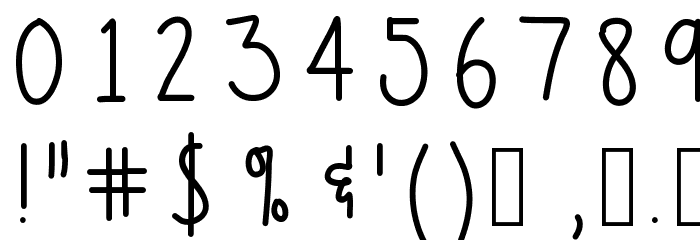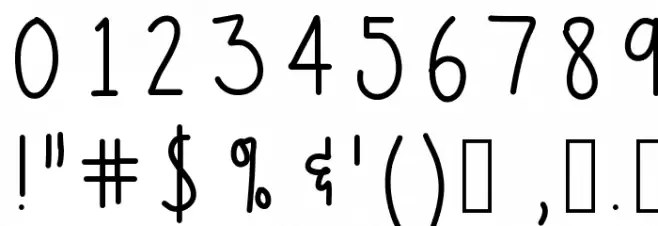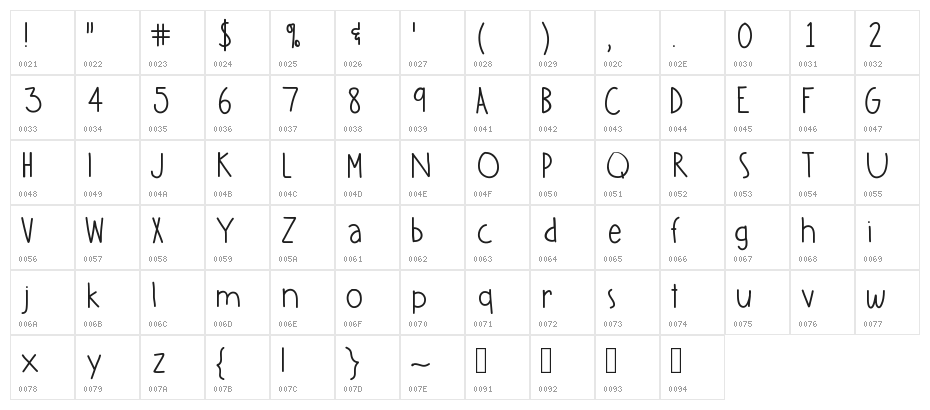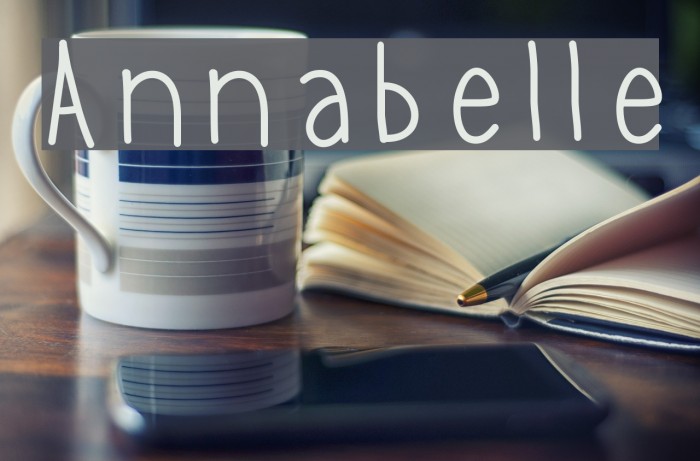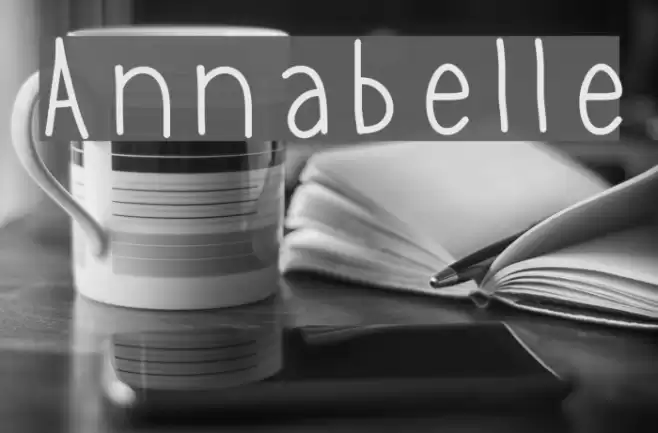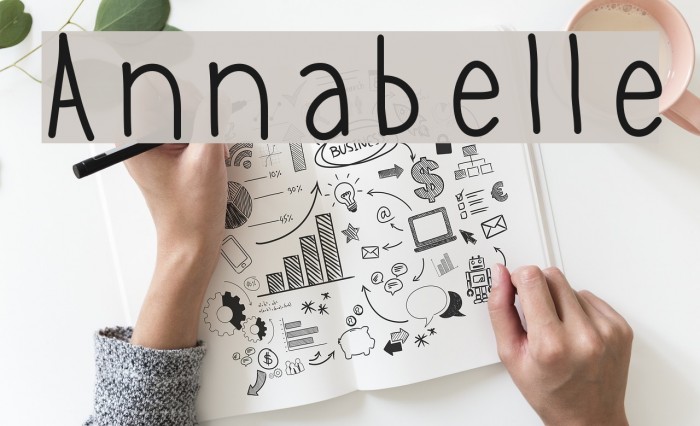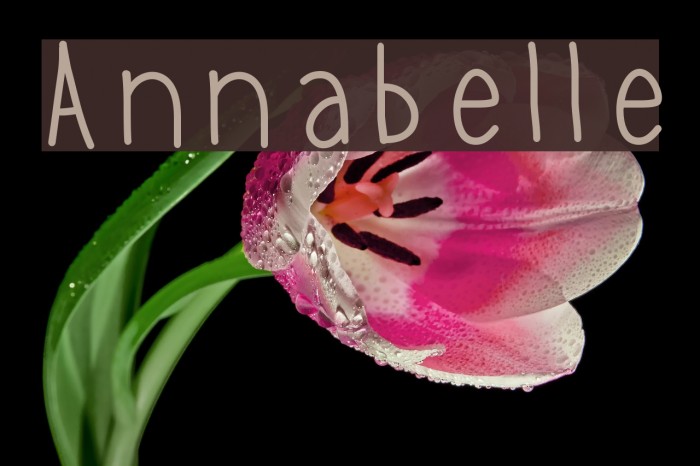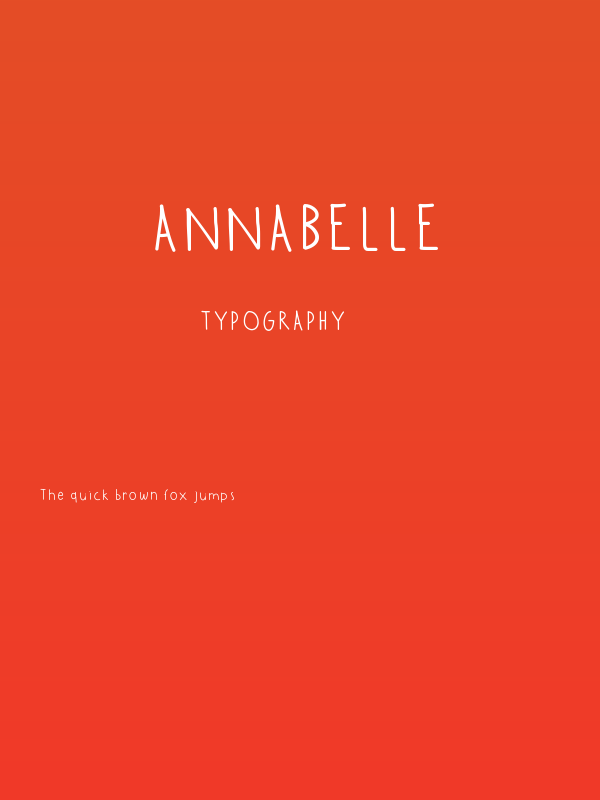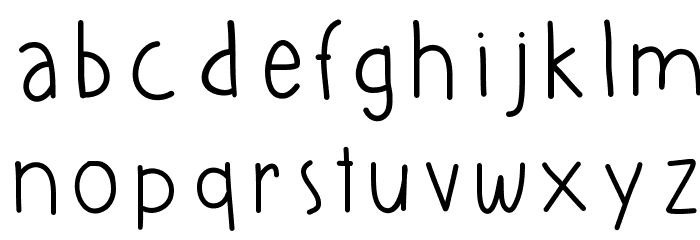
Annabelle Font
Annabelle Description
This font features a playful and whimsical handwritten style, characterized by its smooth, rounded edges and consistent stroke width. The letters are slightly irregular, giving it a casual and friendly appearance. The uppercase and lowercase letters maintain a uniform height, contributing to a cohesive look. Numbers and special characters are designed with the same playful aesthetic, ensuring versatility across various applications. The font's simplicity and charm make it suitable for projects that require a personal touch, such as invitations, greeting cards, and children's books. Its readability and unique style also lend themselves well to branding and logo design, where a distinctive yet approachable look is desired.
| Proposed Projects | Ideal for invitations, greeting cards, children's books, branding, and logo design. |